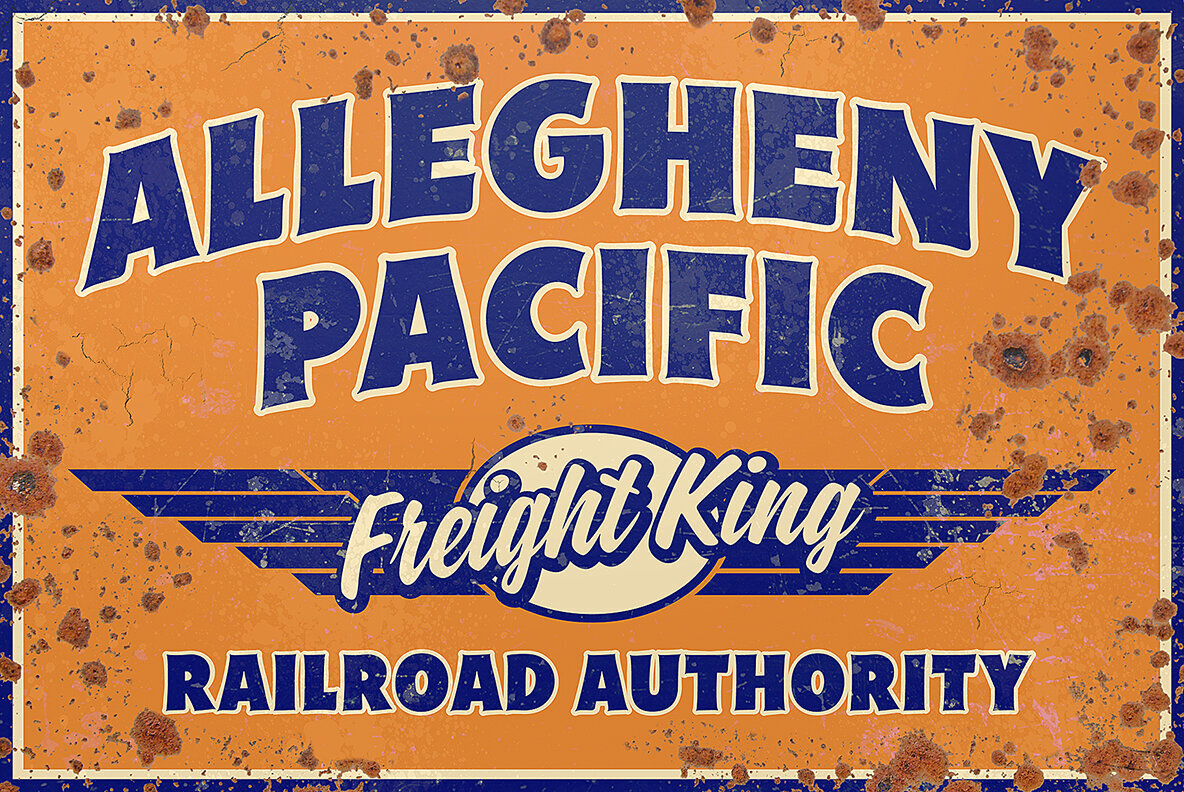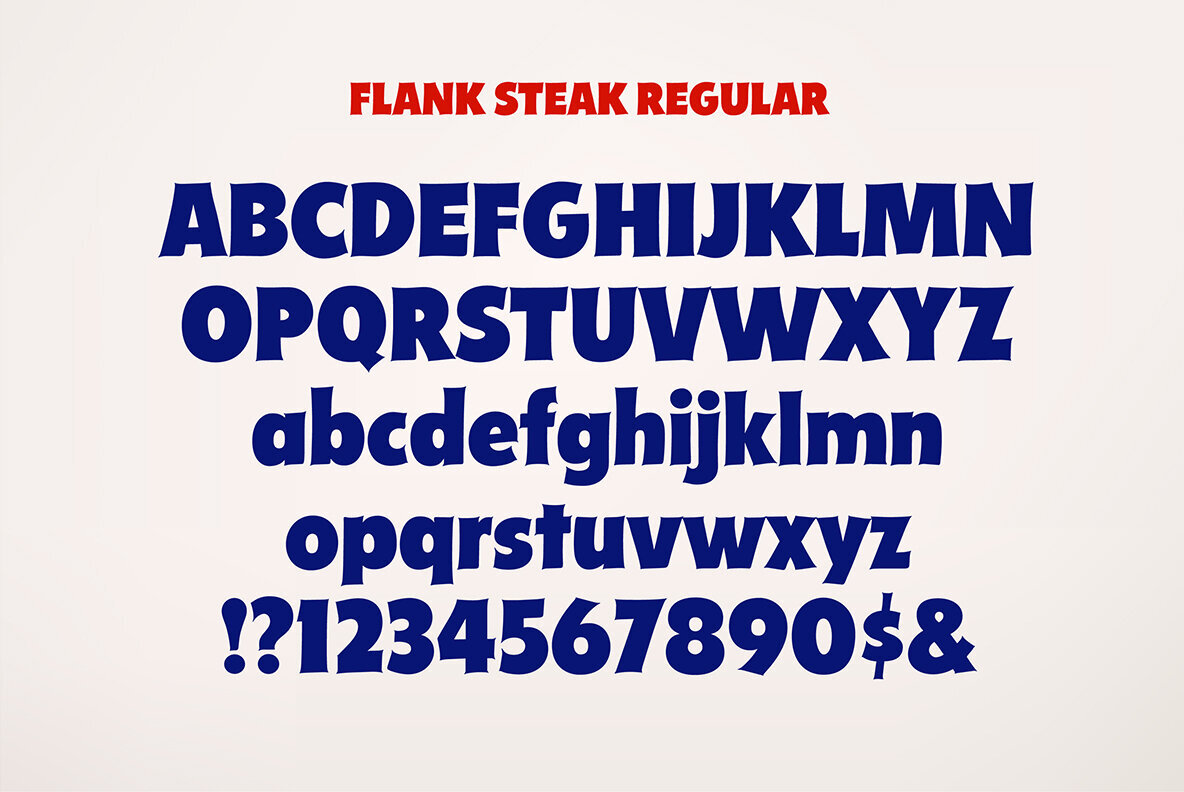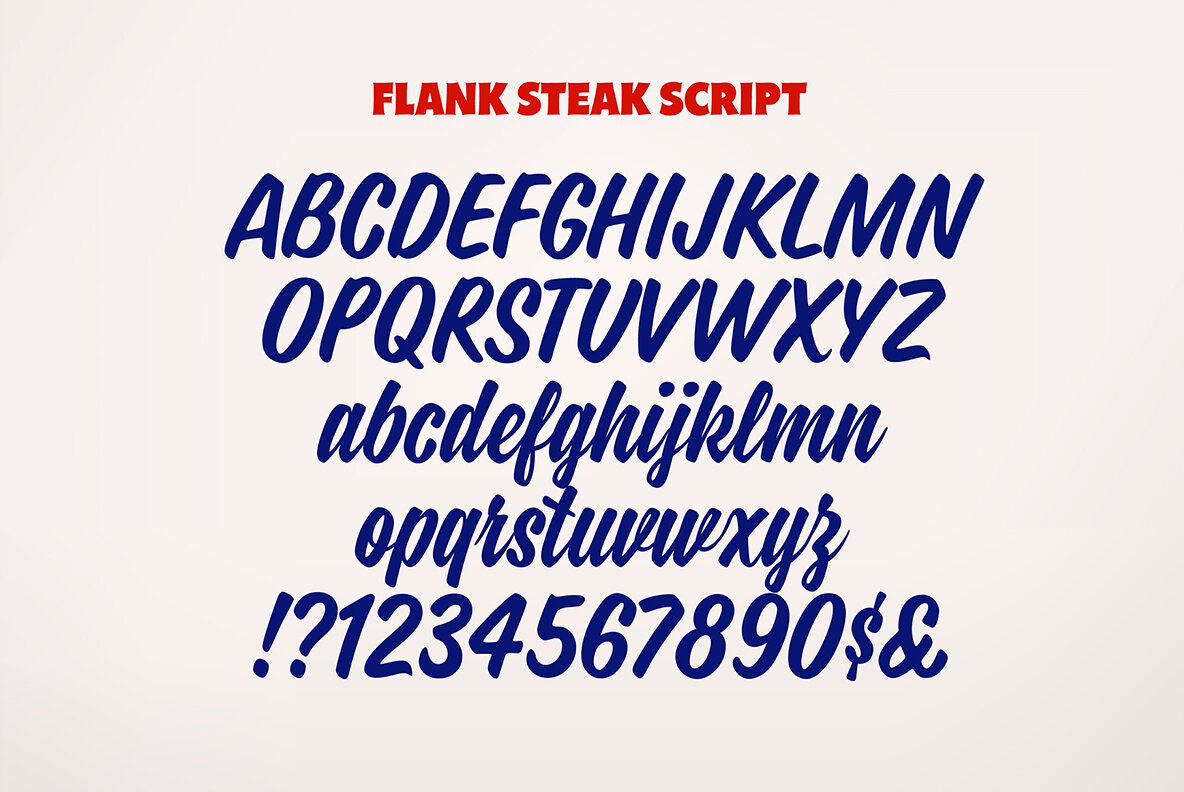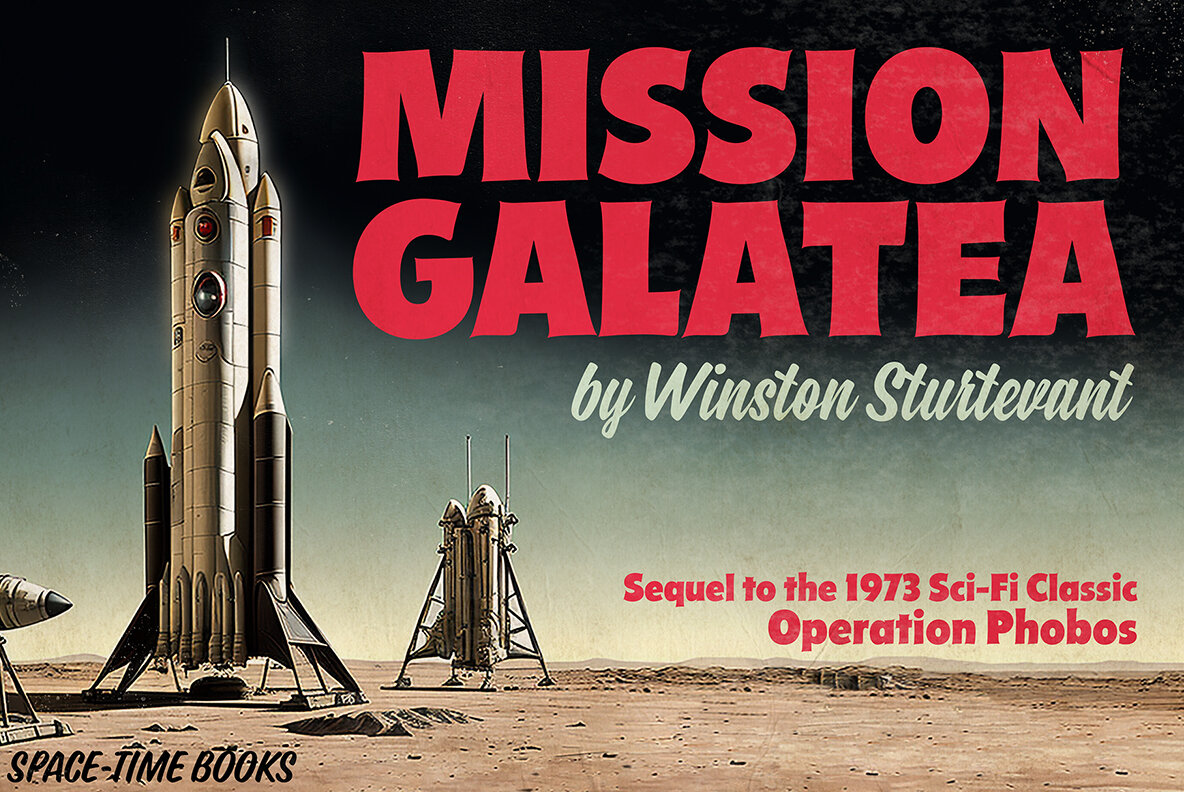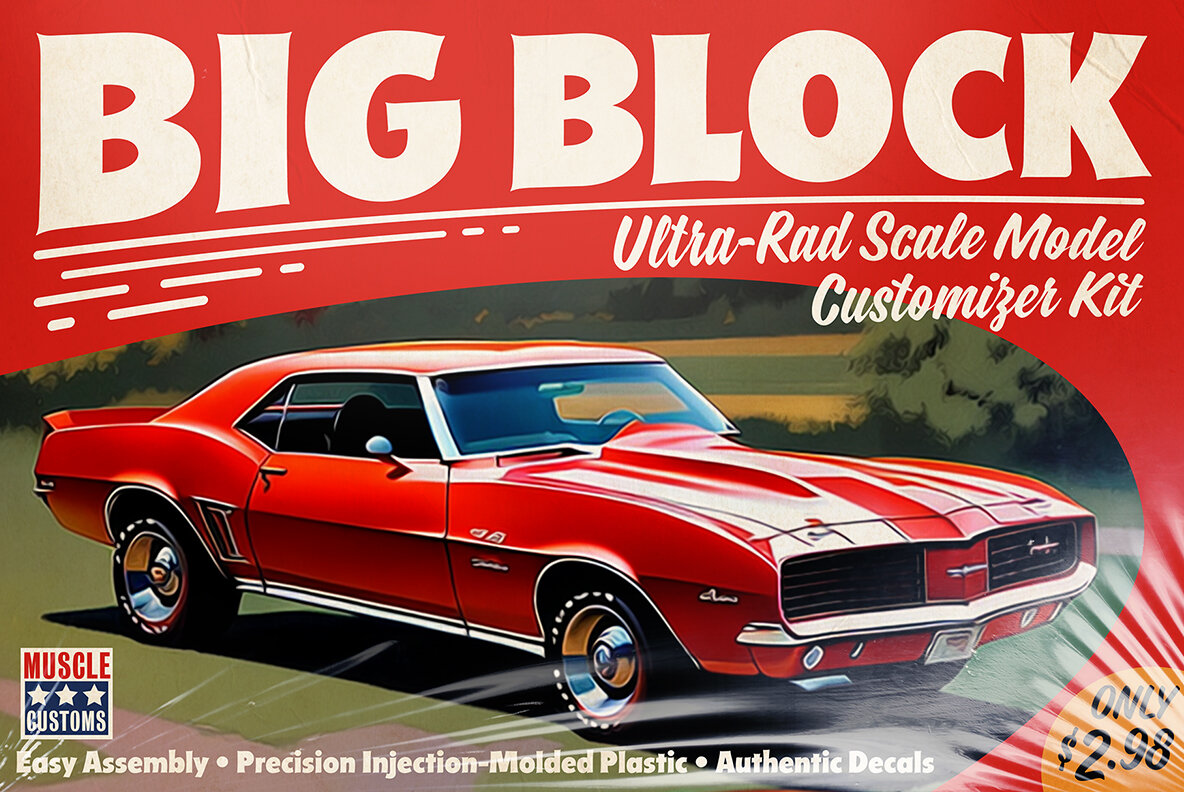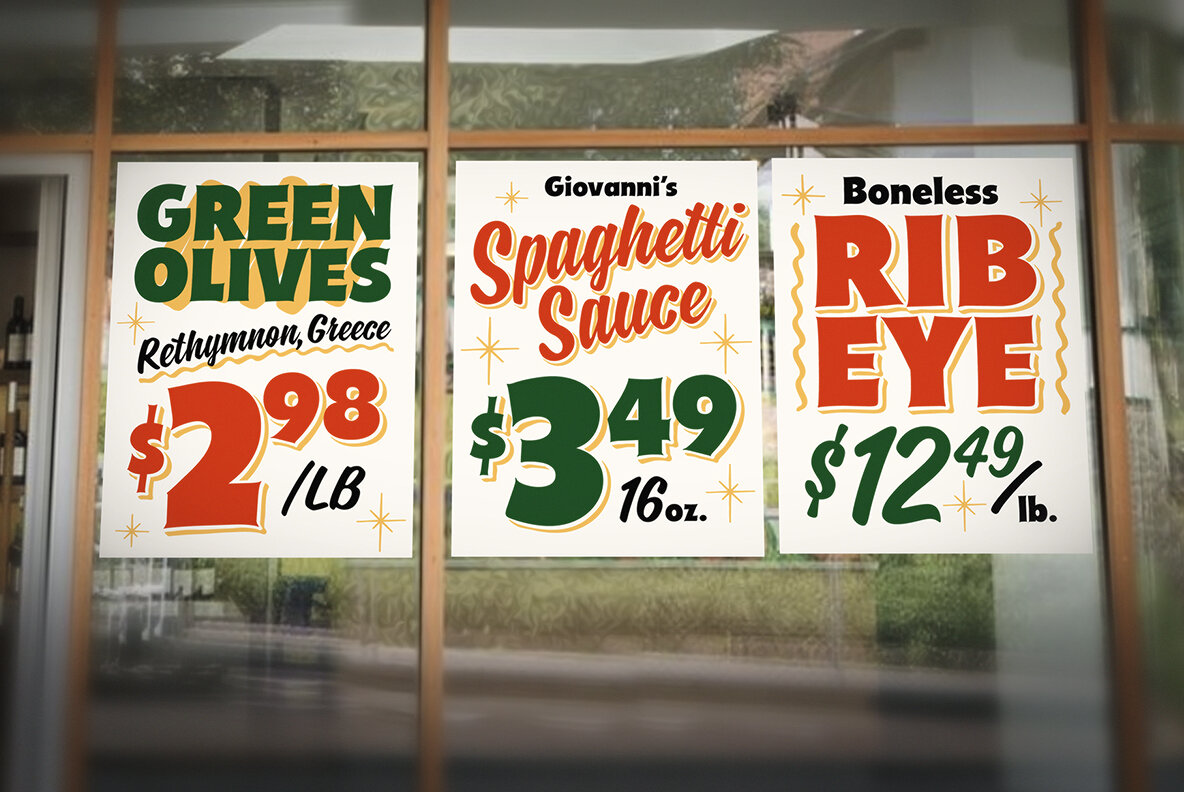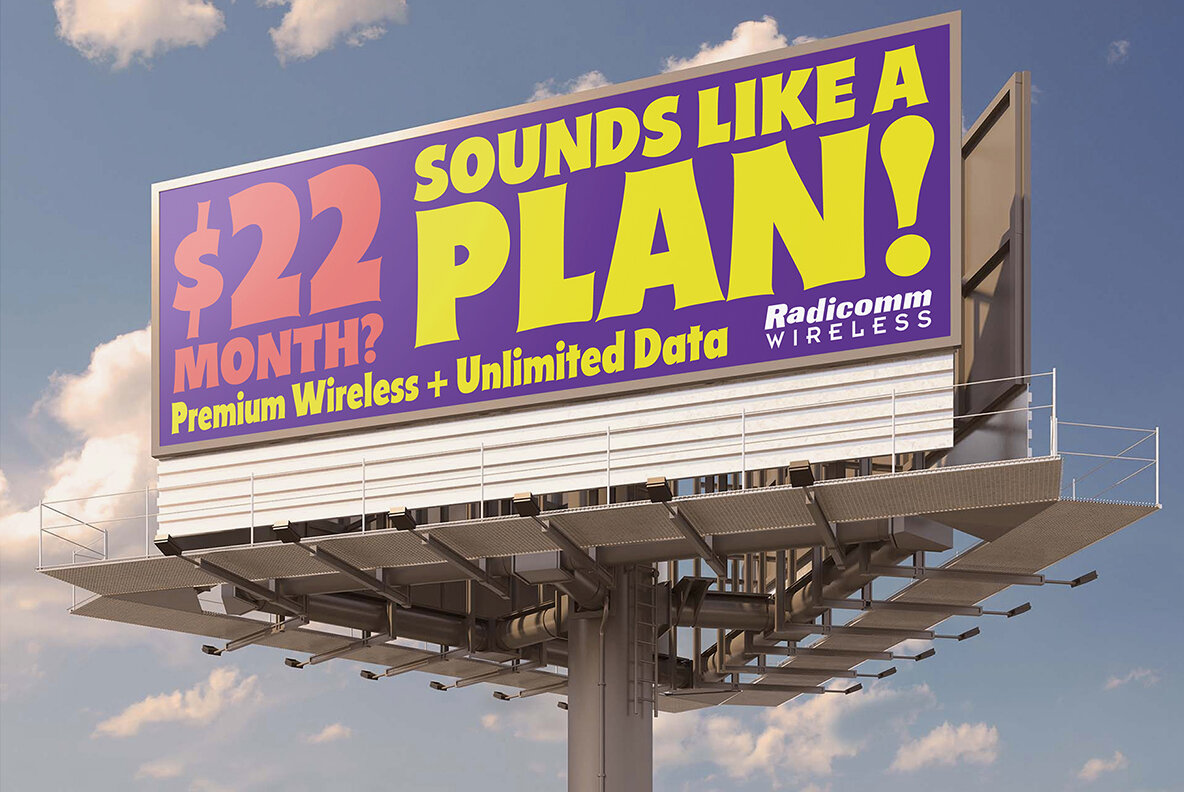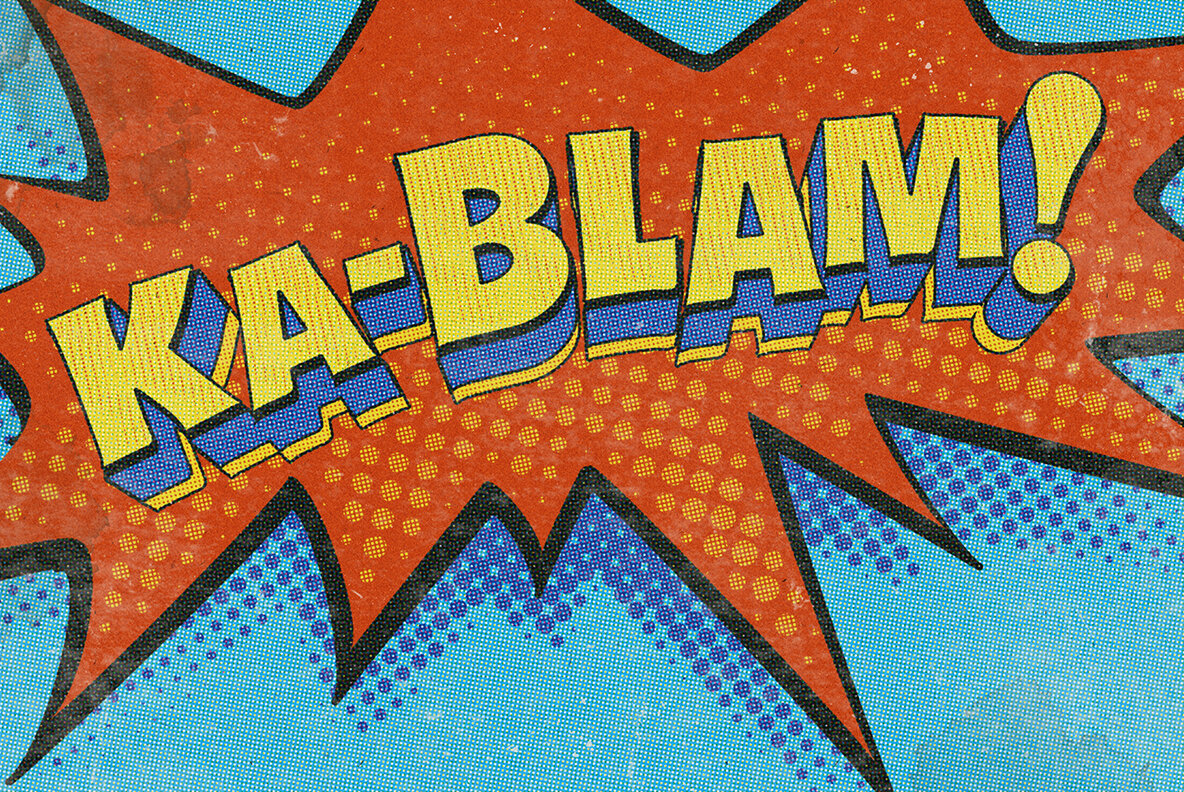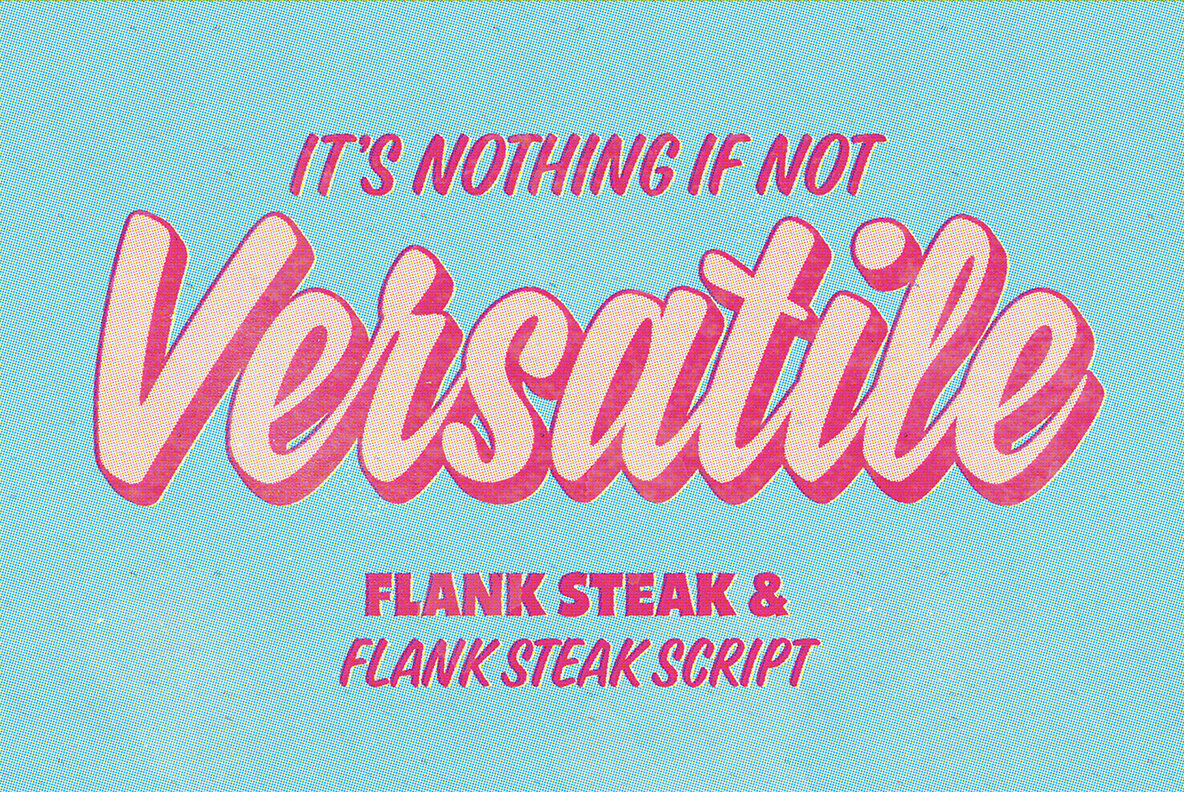
Flank Steak Font
Flank Steak Regular
Flank Steak Script
This duo of handlettered-style vintage Americana fonts is a versatile package that can not only provide that subtle secret sauce that transports the viewer back 60 or 70 years to the neighborhood grocery store, it's also capable of conjuring up a very forward-looking and relaxed modern vibe. Whether it's the extra bold mid-century signpainter style of the sans serif, or the quick-brush liveliness of the casual script, you'll find this versatile pair is a real go-to for a variety of great looks.